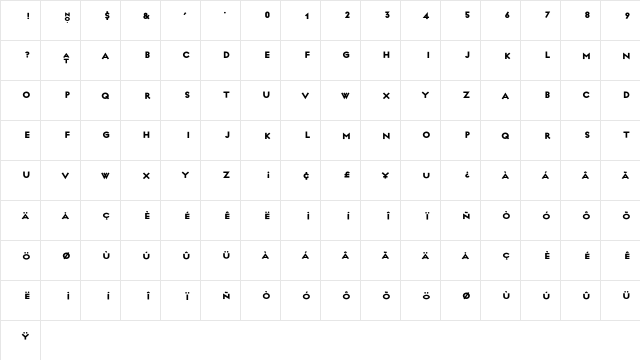
Identification 05C
Design Context for Identification Typeface
Identification offers clean, dependable letterforms without strong stylistic allegiance, making it a practical choice for designers who need flexibility.
Pro Tip: Pair Identification with a font of contrasting weight or personality to build a more expressive typographic hierarchy.